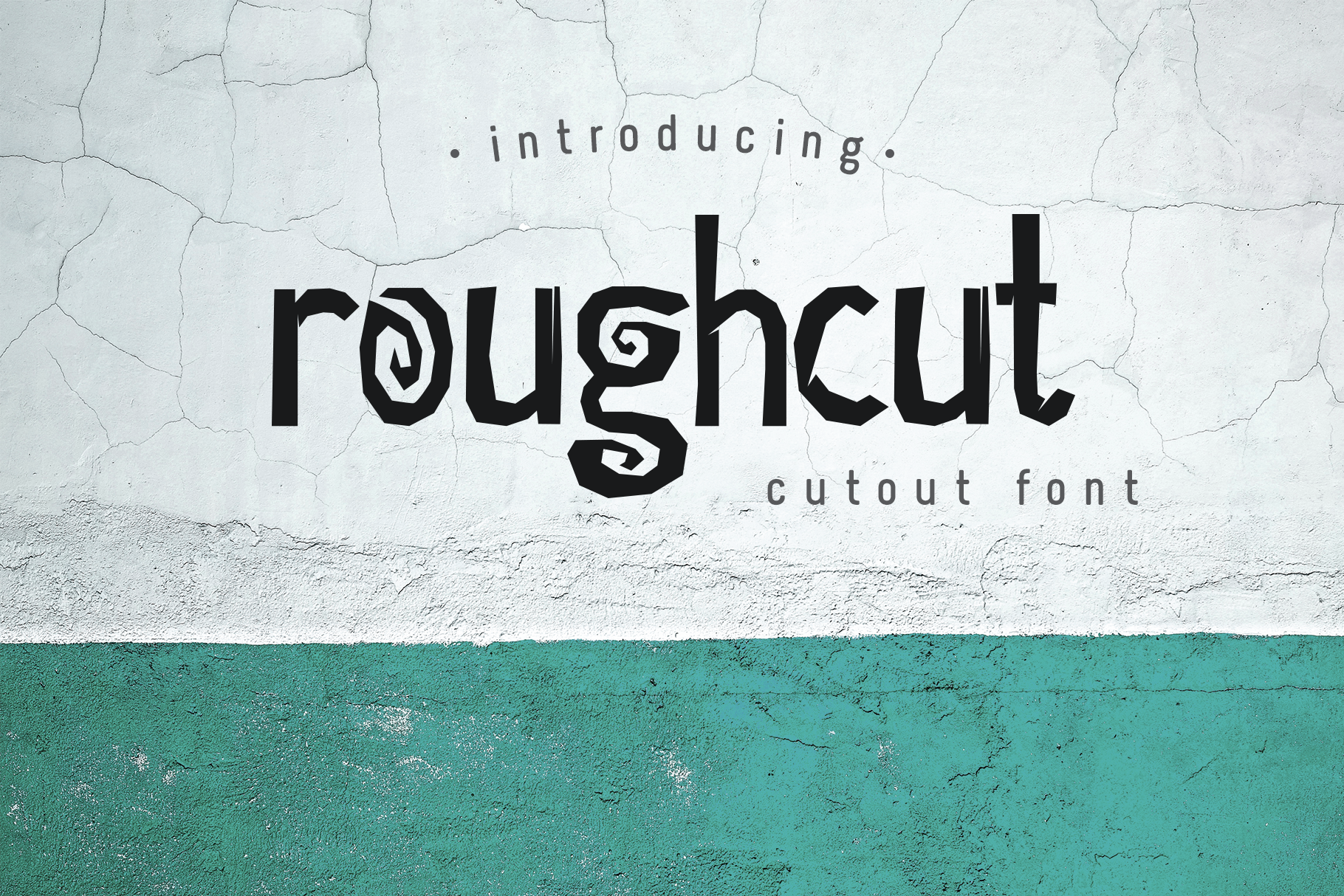
Roughcut font
Introducing Roughcut Regular font!
This font include uppercase, lowercase and numbers. Punctuation: ()/?!$&#%.,:;'"*-+@
This font is well suited for posters, quotes, logos, labels, t-shirts, advertising, book and magazine covers.